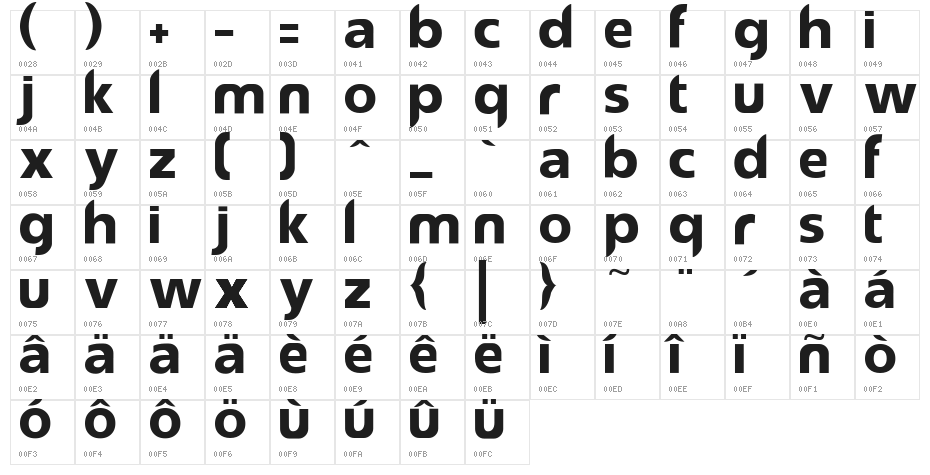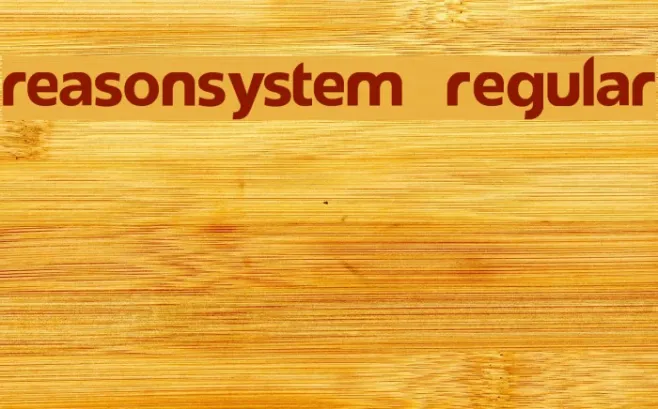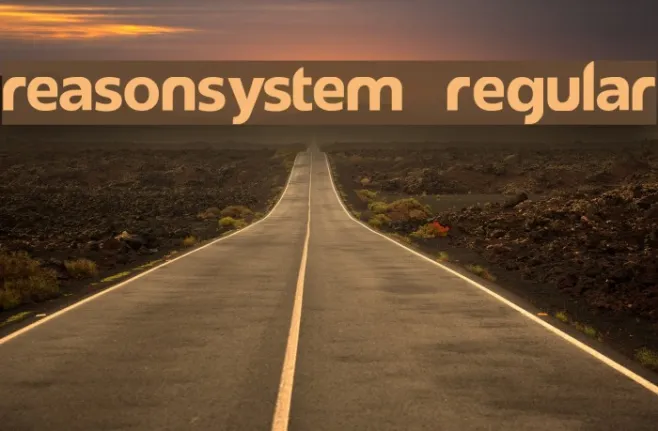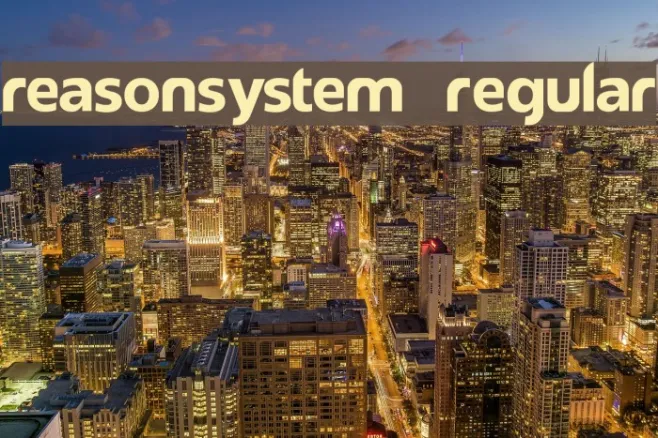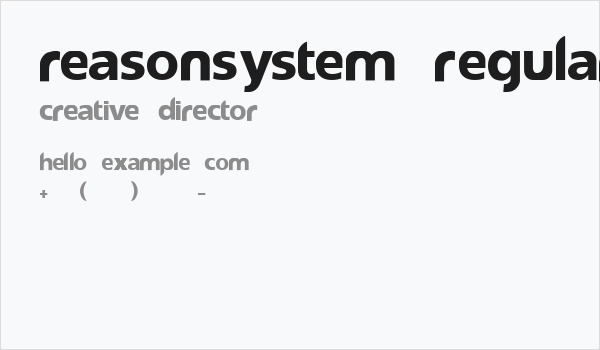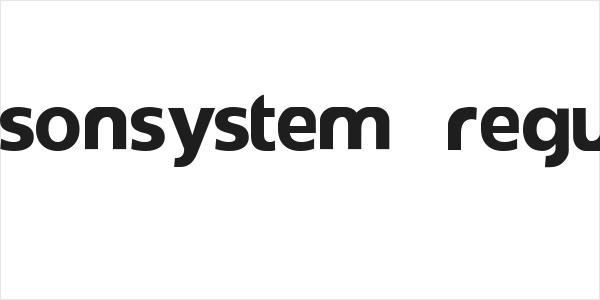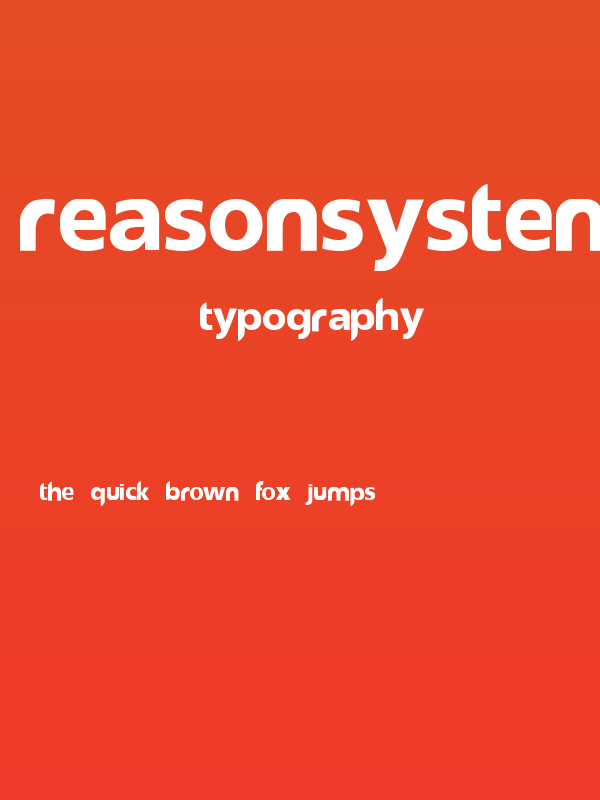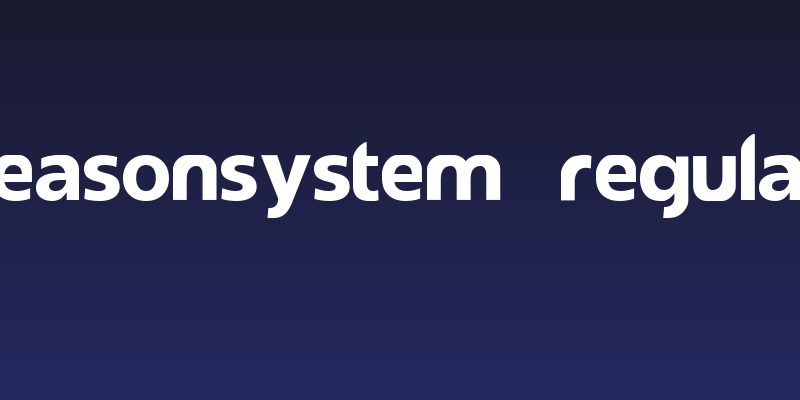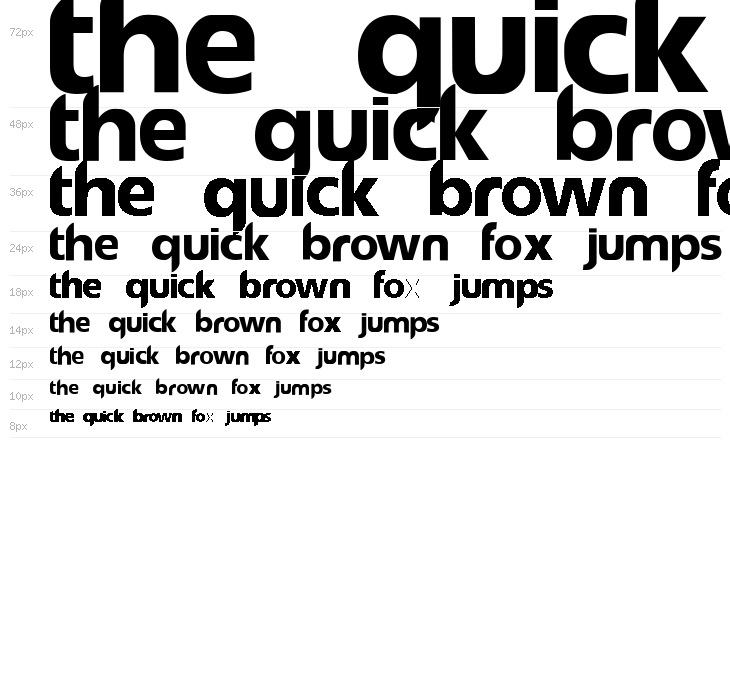
reasonSystem Regular Font
reasonSystem Regular Description
This font features a bold and modern sans-serif design with clean, geometric shapes. The characters are well-balanced with a consistent stroke width, giving it a uniform appearance. The rounded edges add a touch of softness, while the overall structure maintains a strong and assertive presence. The font is highly legible, making it suitable for a variety of applications. Its contemporary style is enhanced by the smooth curves and precise lines, which contribute to its professional and polished look. The spacing between characters is tight, ensuring a compact and cohesive text flow.
| Proposed Projects | Ideal for branding, advertising, web design, and editorial layouts. |